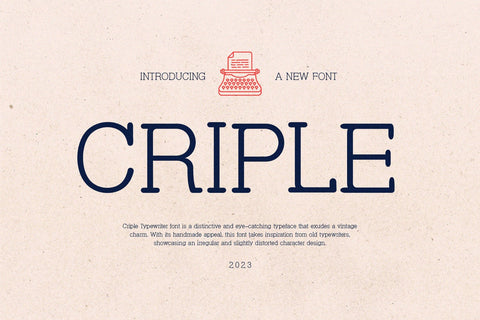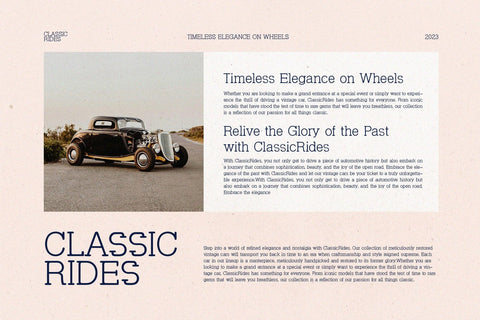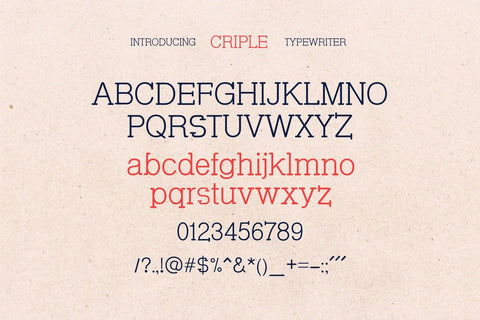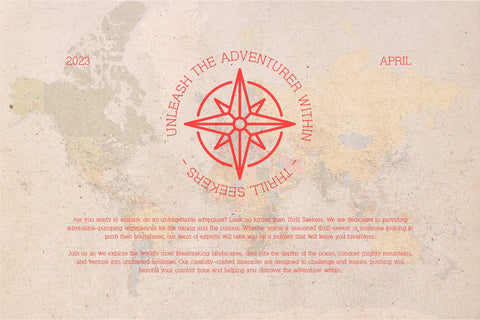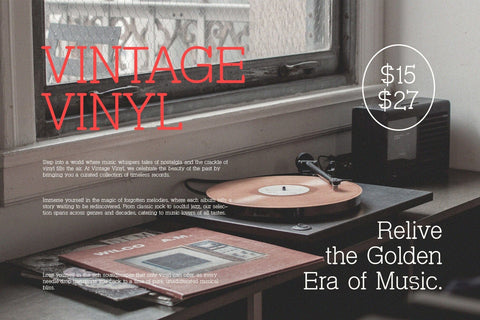
Criple - Unique Serif Font
Introducing our new Criple, modern and unique serif font with elegant style this is perfect for branding, logos, invitation, magazines, product packaging and more.